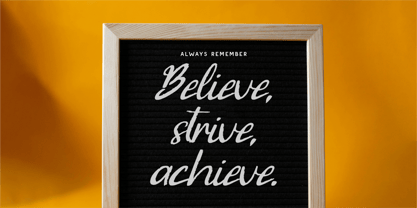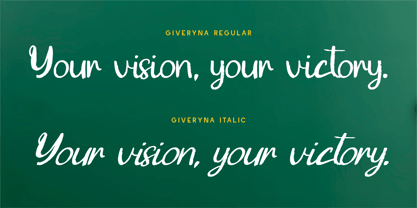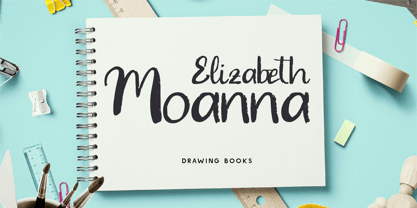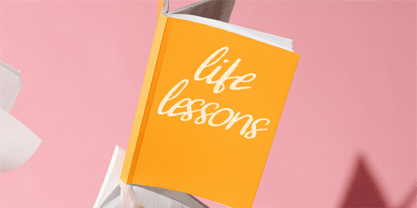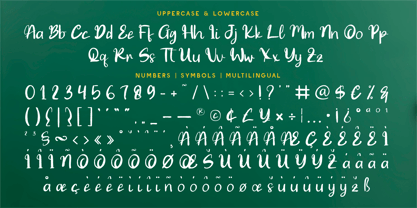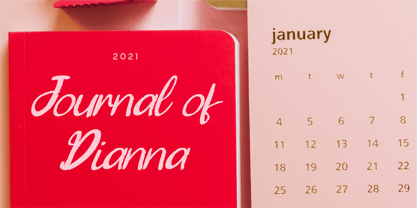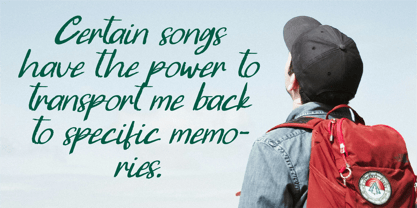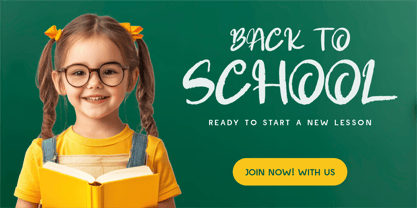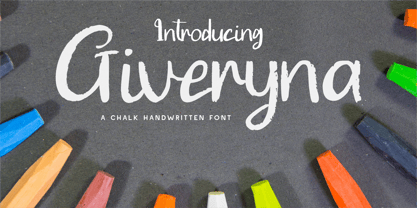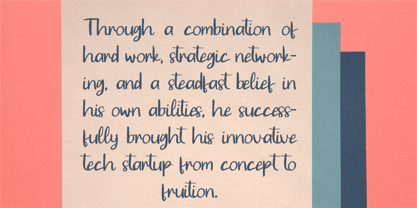
Giveryna – A Textured & Playful Chalk Handwritten Font
Step into the creative world of chalk artistry with Giveryna, a chalk handwritten font that brings a natural, hand-drawn texture to your designs. Featuring rough, organic strokes that mimic real chalk on a blackboard, this font adds a sense of warmth, nostalgia, and creativity to any project.
Perfect for educational materials, café menus, kids' branding, DIY projects, event posters, and creative packaging, Giveryna captures the charm of a friendly, hand-sketched style while maintaining readability. Whether you're designing for classroom themes or rustic chalkboard aesthetics, this font offers authentic handmade appeal.
Why Choose Giveryna?
🖍 Authentic Chalk Texture: Hand-drawn strokes for a realistic chalkboard effect.
🎨 Fun & Playful: A lively, handcrafted feel perfect for school, cafés, and casual designs.
📖 Ideal for Education & Branding: Great for classroom posters, menus, and promotional materials.
🌍 Multilingual Support: Includes numbers, symbols, and extensive language compatibility.
- Standard Character A-Z, a-z, 0-9, Punctuation & symbols
- Regular and Italic